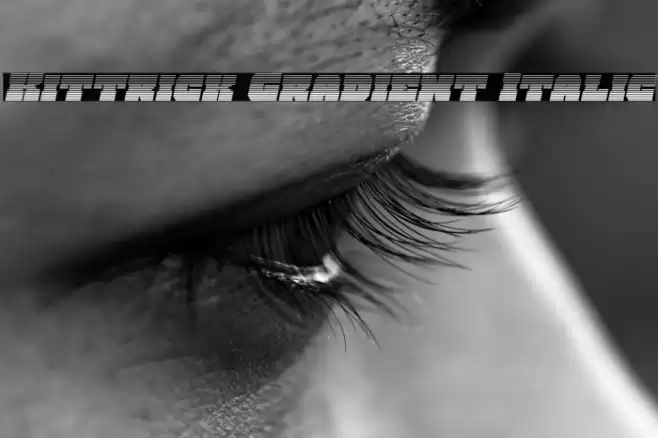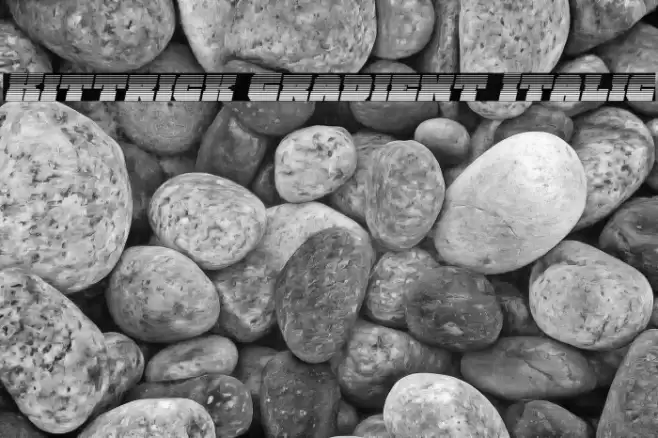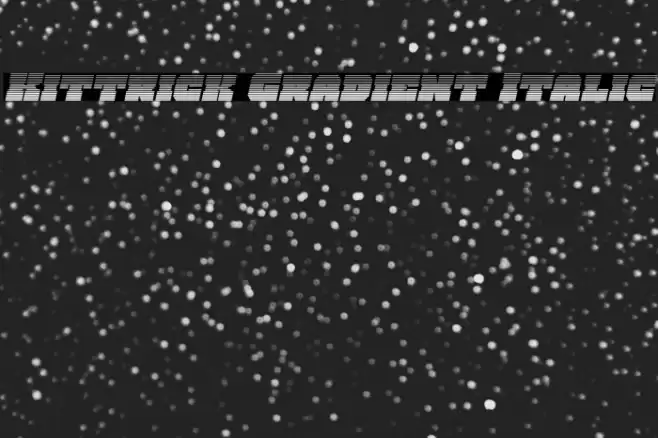
Kittrick Gradient Italic Font
Kittrick Gradient Italic Description
This font features a bold, italicized style with a unique gradient effect that gives it a dynamic and futuristic appearance. The characters are composed of horizontal lines that create a sense of motion and depth. The uppercase and lowercase letters maintain a consistent design, with each character exhibiting a slanted, forward-leaning posture. The numerals and special characters follow the same stylistic approach, ensuring uniformity across all glyphs. This font's distinct look makes it ideal for projects that require a modern and eye-catching typeface.
A bold, italicized font with a gradient effect and dynamic, futuristic design from Uncategorized fonts.
- Proposed Projects: Ideal for sci-fi themed designs, tech branding, video game titles, and modern advertising.